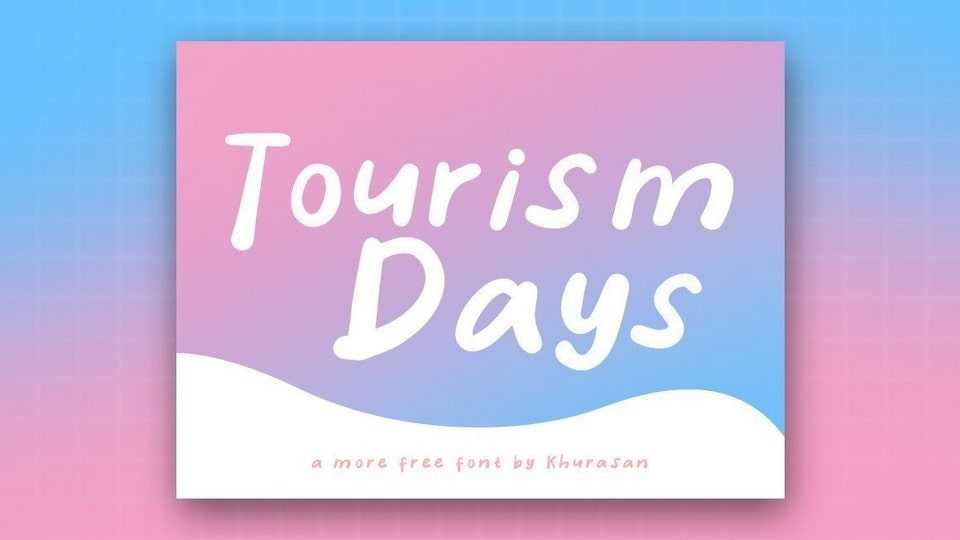
Download Tourism Days font, a simple and relaxed handwritten typeface for notes and crafts. Tourism Days font is also perfect for posters, logos, magazines, book covers, banners, and many more.